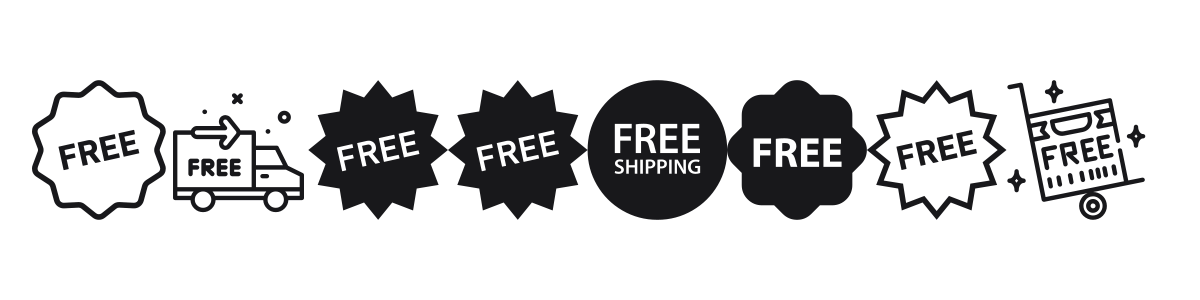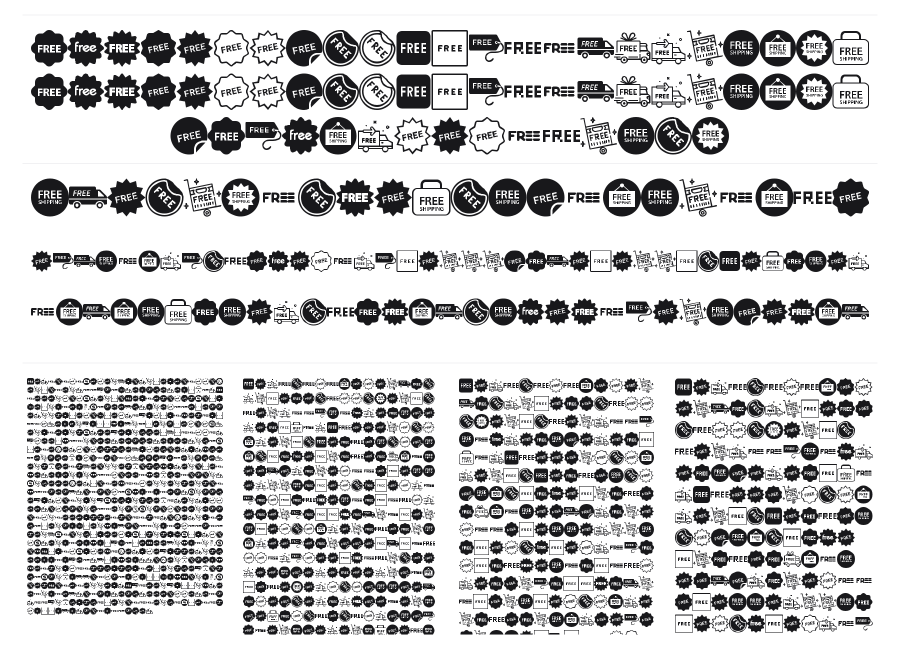
Free Tags
Free Tags is a dingbat font made up of promotional badge and label icons, all themed around 'FREE' and 'FREE SHIPPING' messaging. Each character maps to a different badge style: starbursts, speech bubbles, stickers, peel-away tags, and delivery truck graphics. Sourced from SVG icon designs and built for use in dynamic image generation or web graphics where variety in promotional badge styles matters.